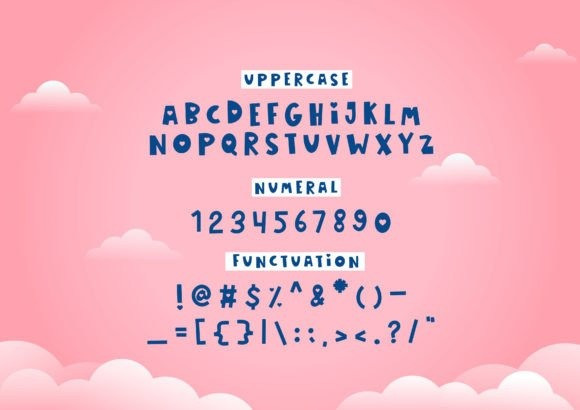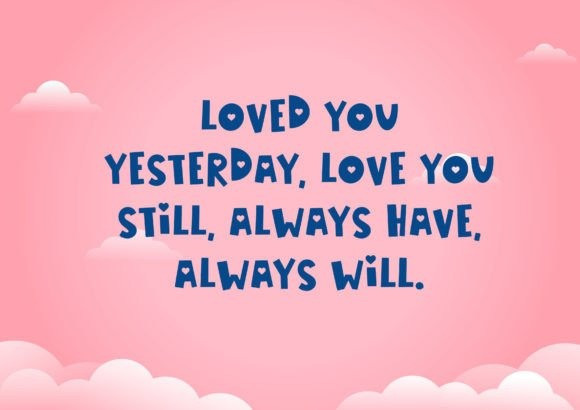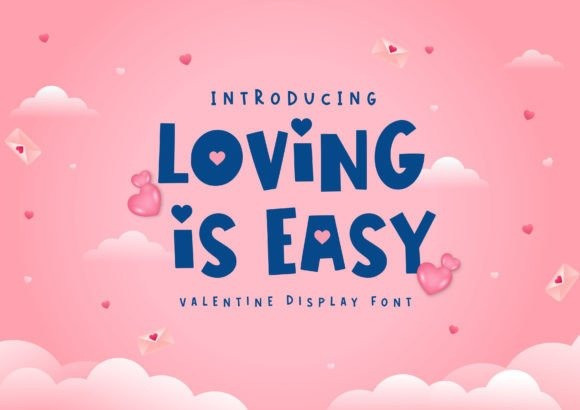
Loving Is Easy Font
Loving is Easy Display Font was inspired by playful, bouncy romantic typography. This font is perfect for a design that makes it more attractive and playful. Made with a very good level of aesthetics, this font is great for valentine’s themed projects, book covers, posters, packaging, merchandise, logotypes, and much more.